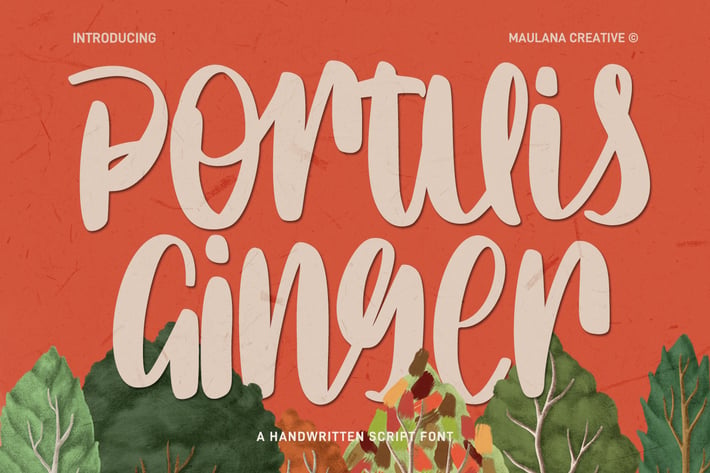
Portuis Ginger Handwritten Script Font
Portuis Ginger is a fancy handwritten script font. With bold contrast stroke, fun character with a bit of ligatures and alternates. To give you an extra creative work. Portuis Ginger font support multilingual more than 100+ language. This font is good for logo design, Social media, Movie Titles, Books Titles, a short text even a long text letter and good for your secondary text font with sans or serif. Make a stunning work with Affectus font.